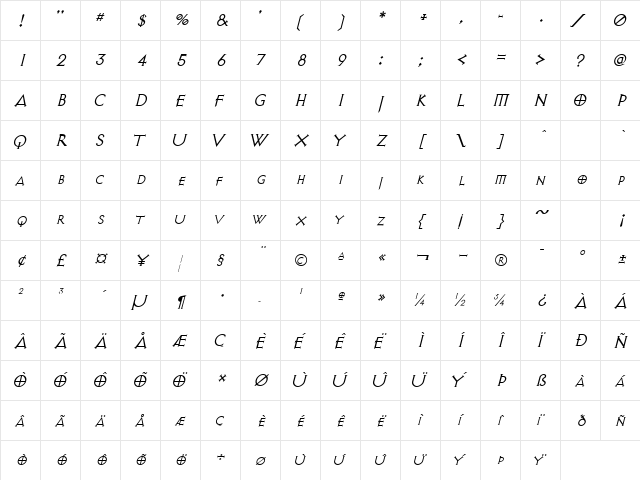
AvalonQuest Italic
Design Context for AvalonQuest Typeface
AvalonQuest offers clean, dependable letterforms without strong stylistic allegiance, making it a practical choice for designers who need flexibility. The slanted form adds forward momentum and visual energy.
Pro Tip: Try AvalonQuest for annotation and caption copy alongside an upright companion — the contrast in angle creates a dynamic but ordered typographic system.